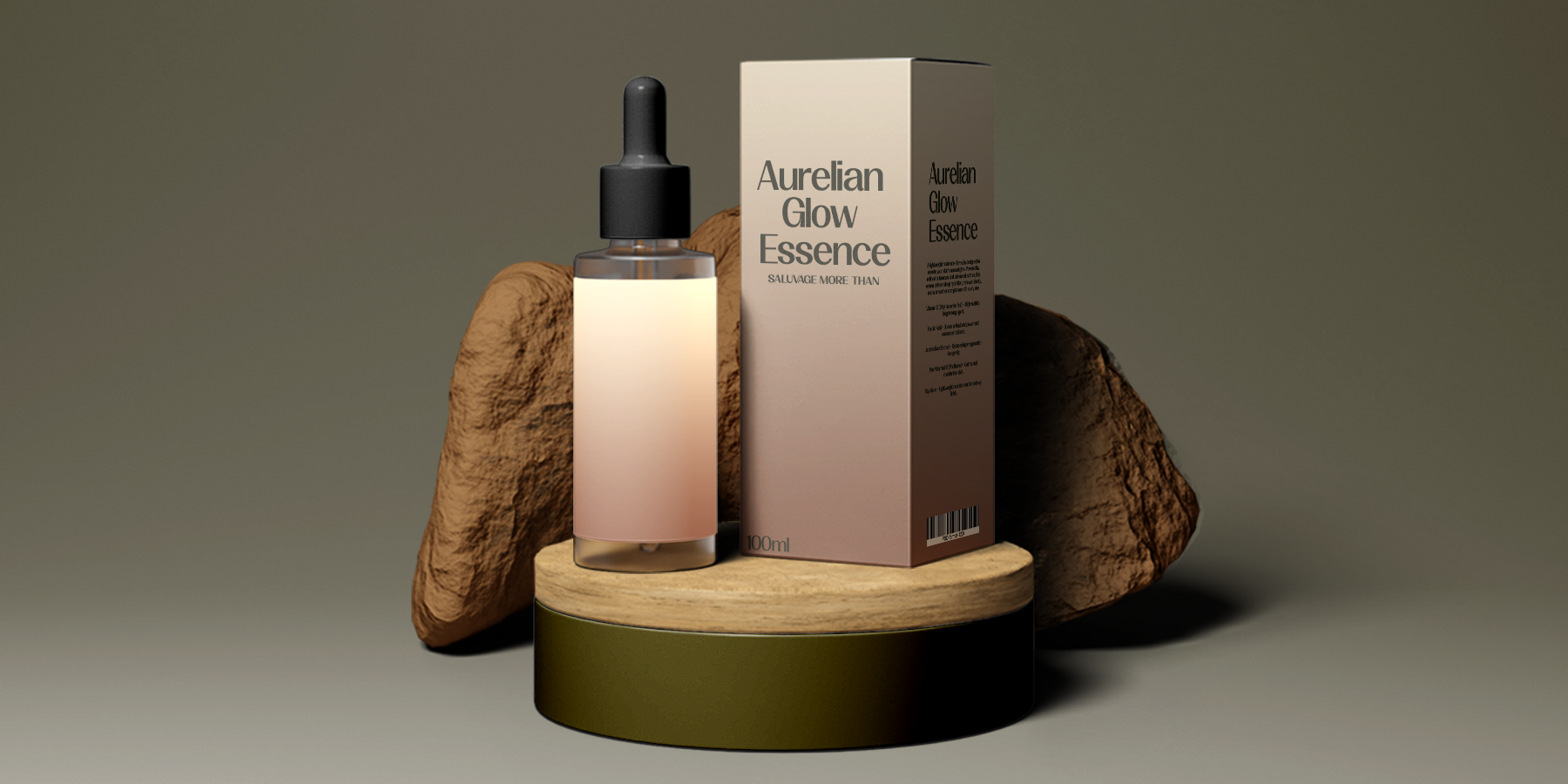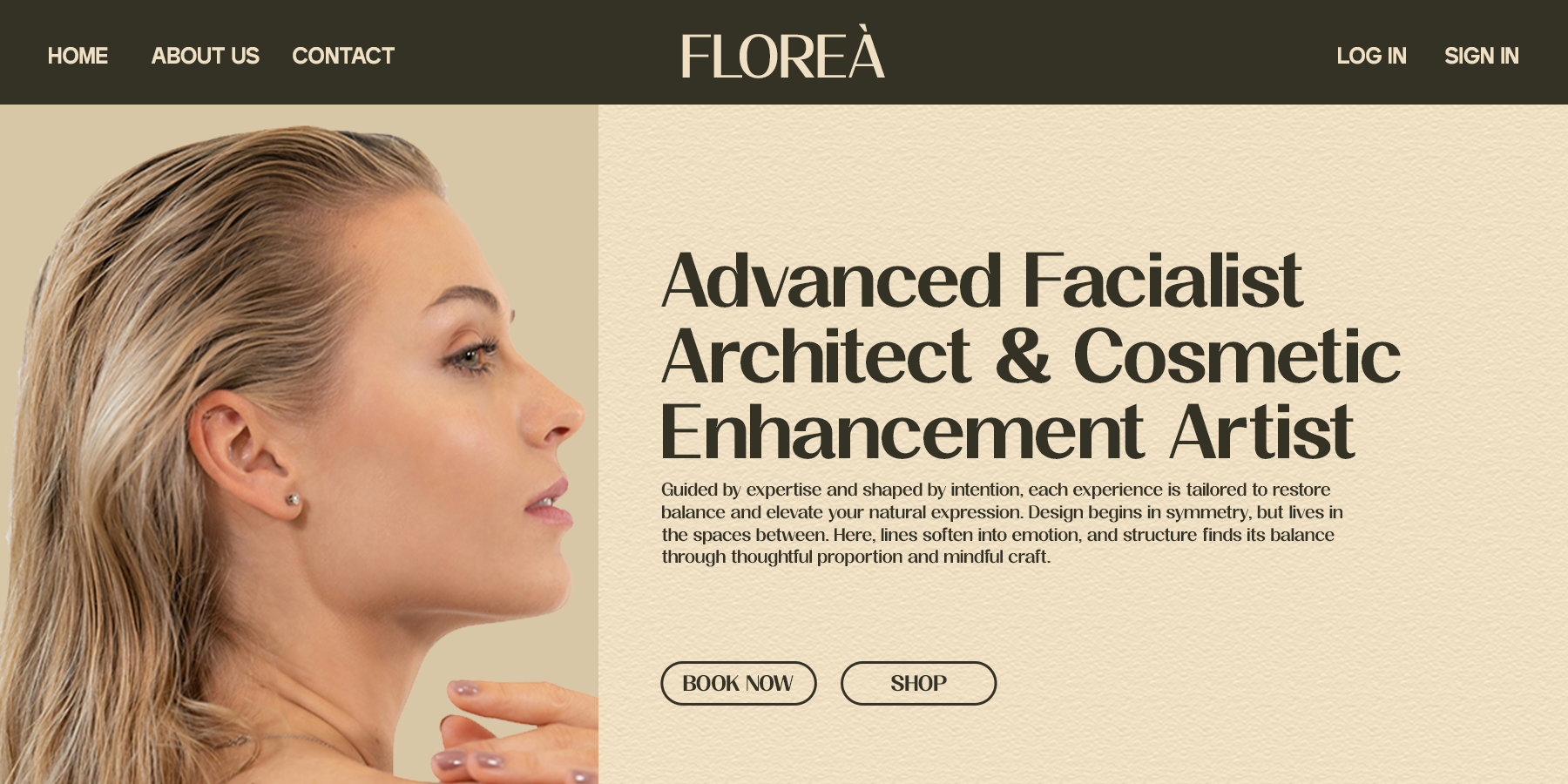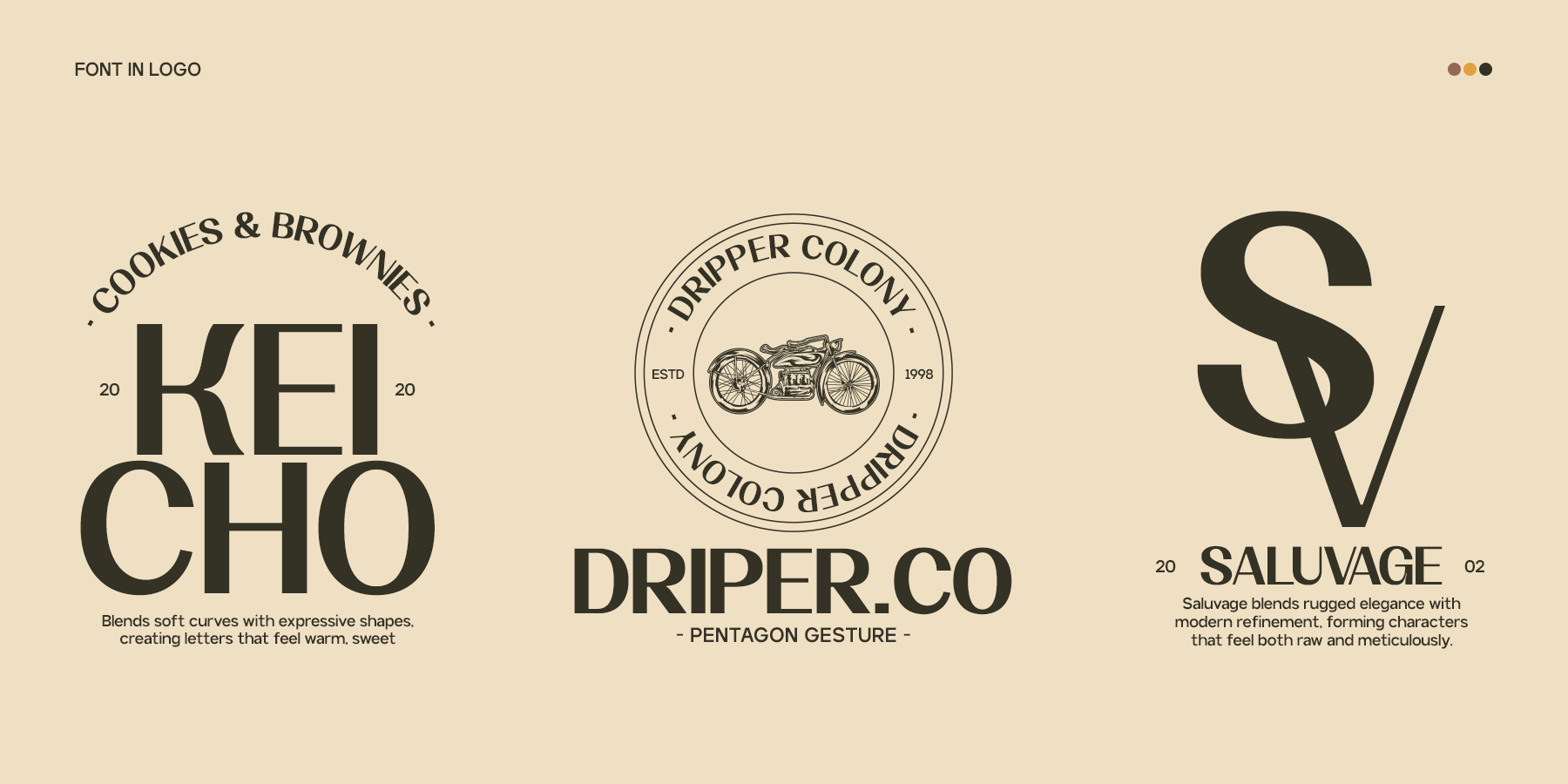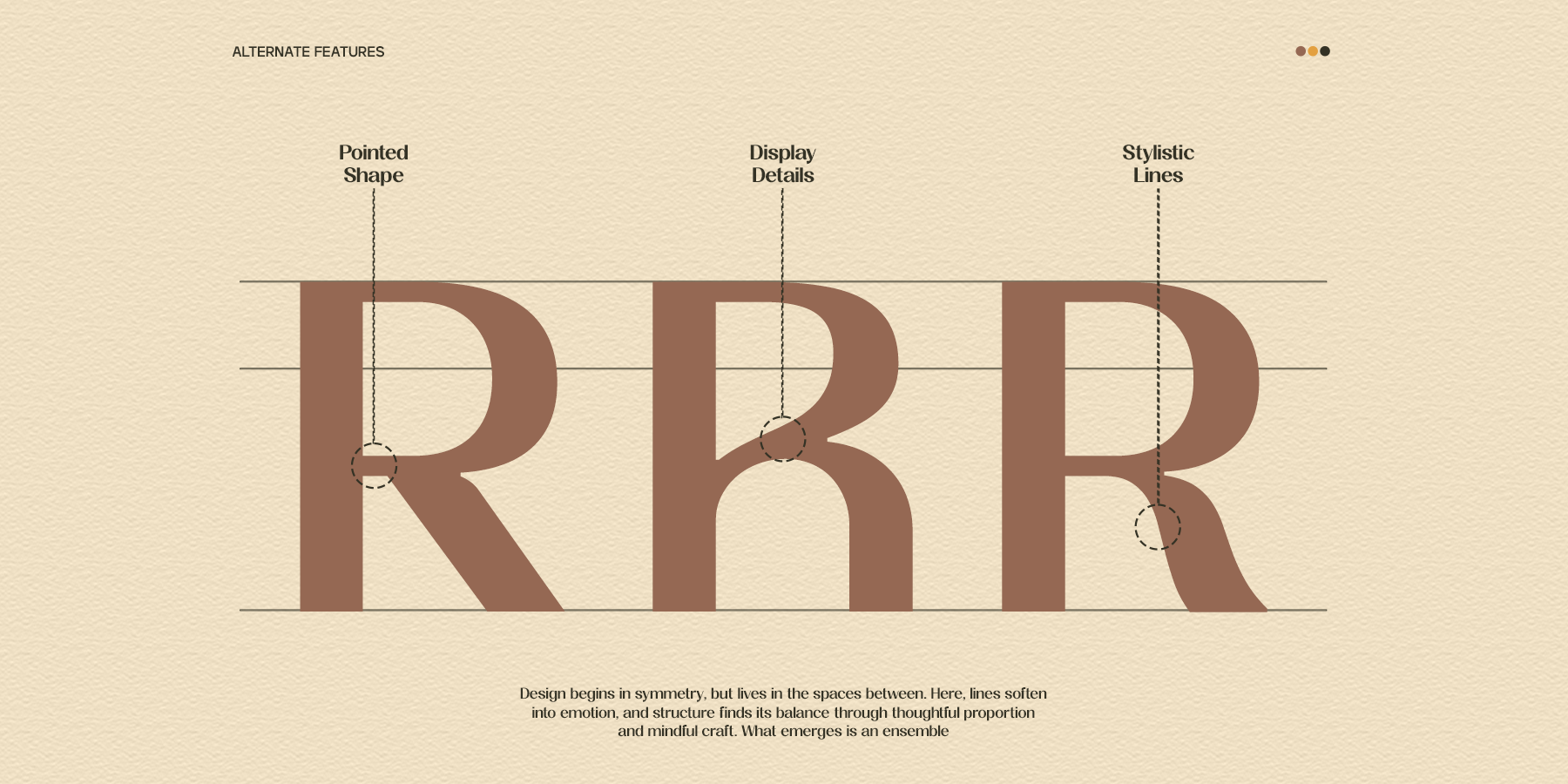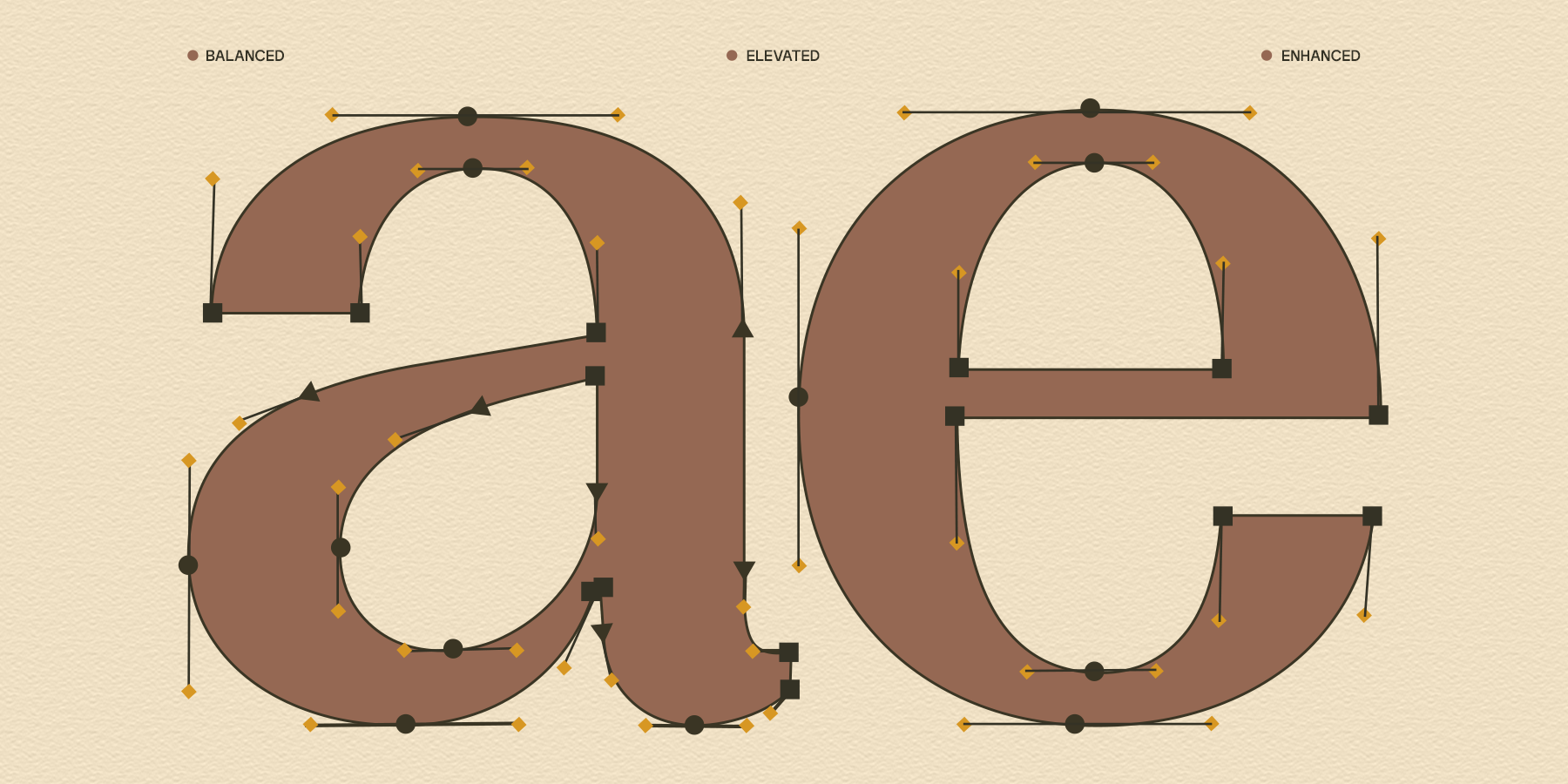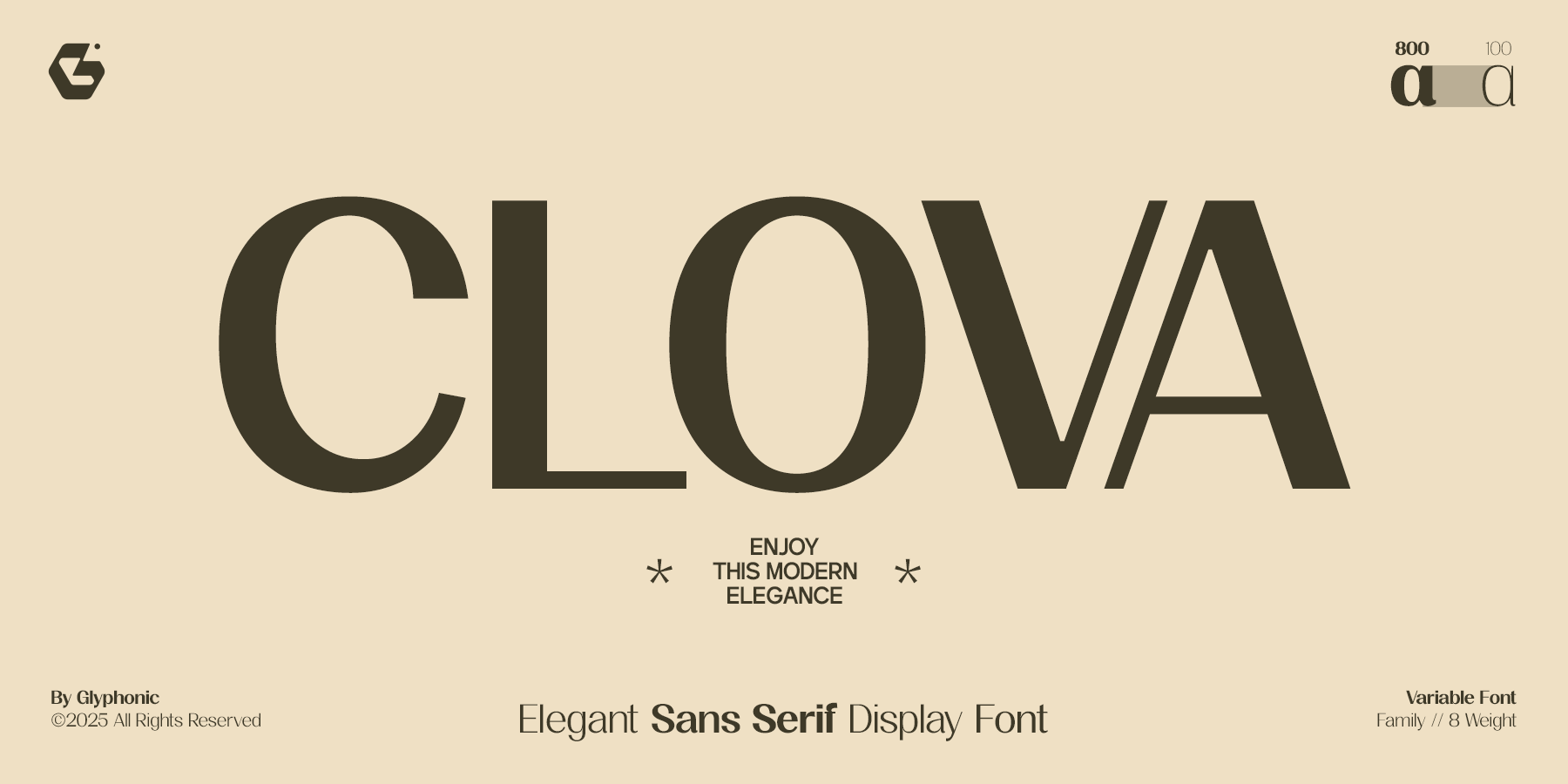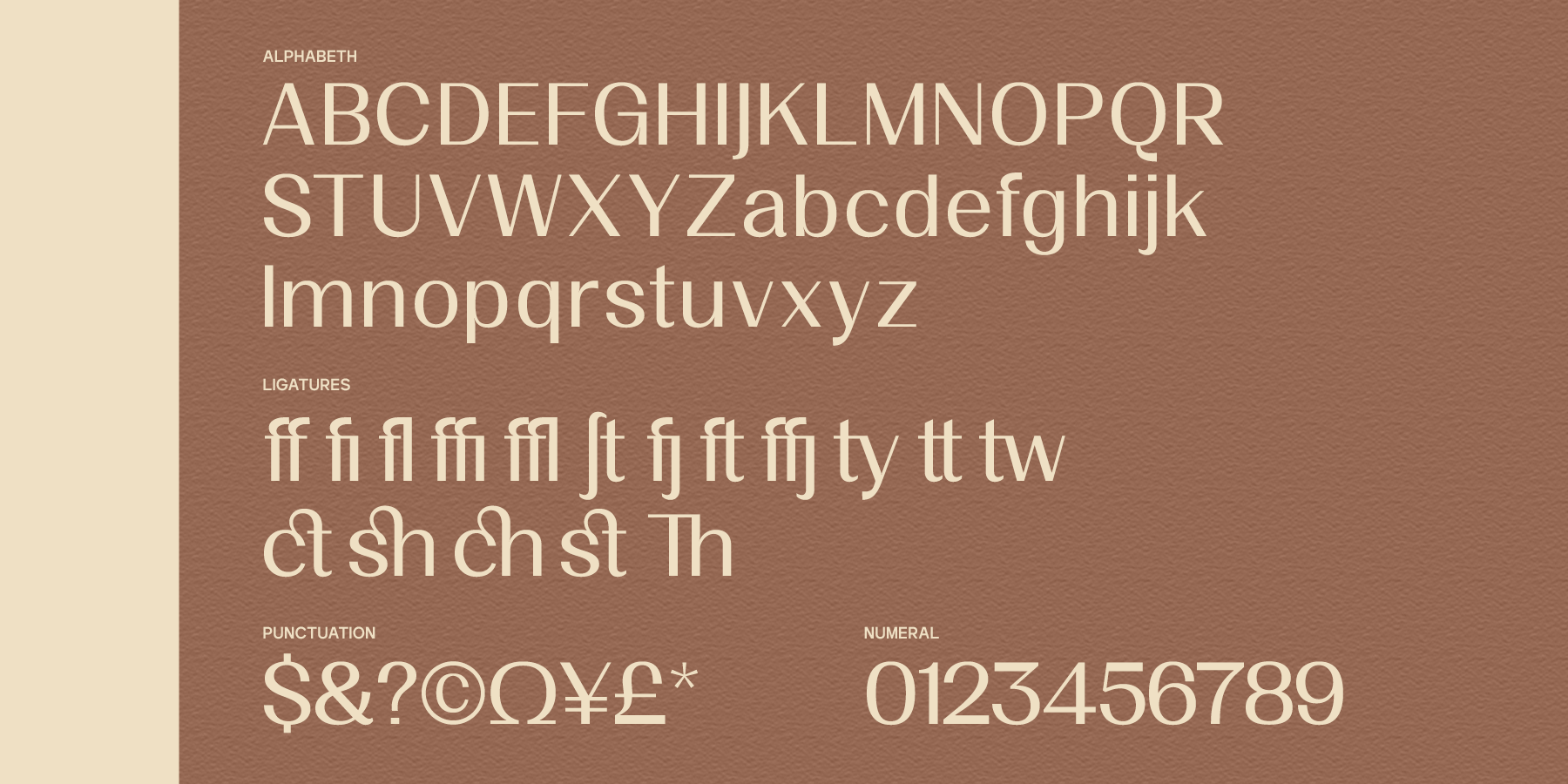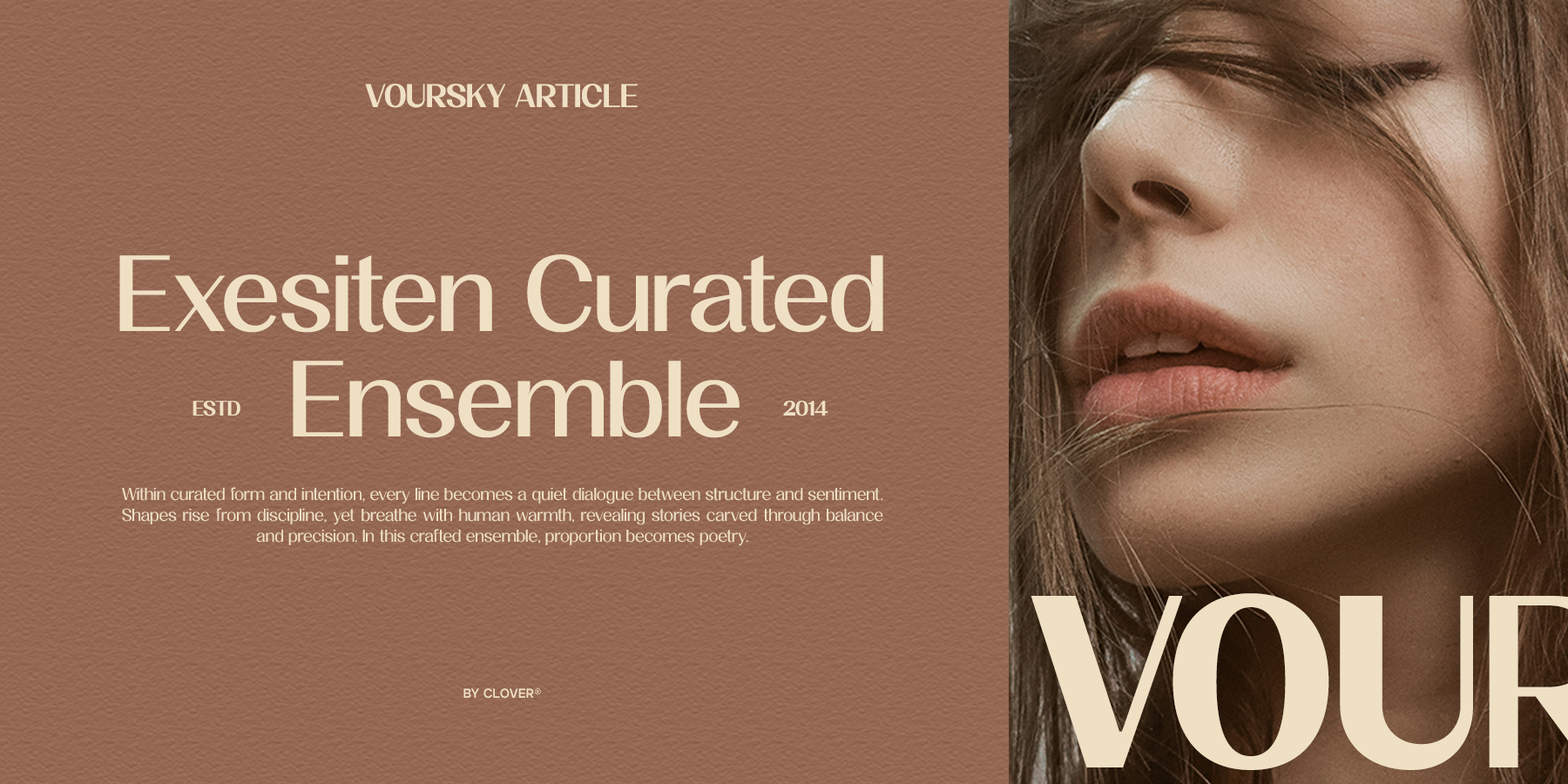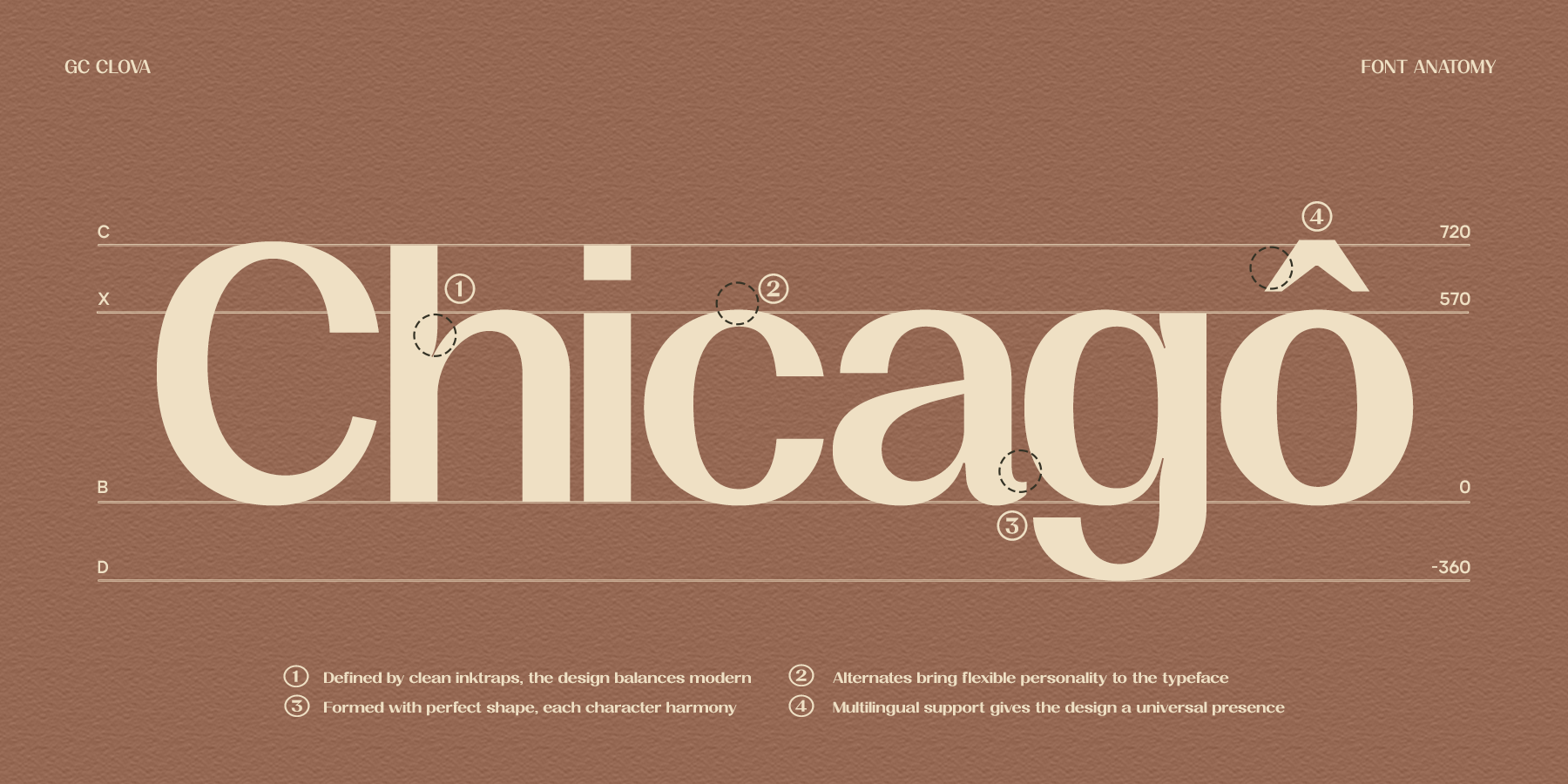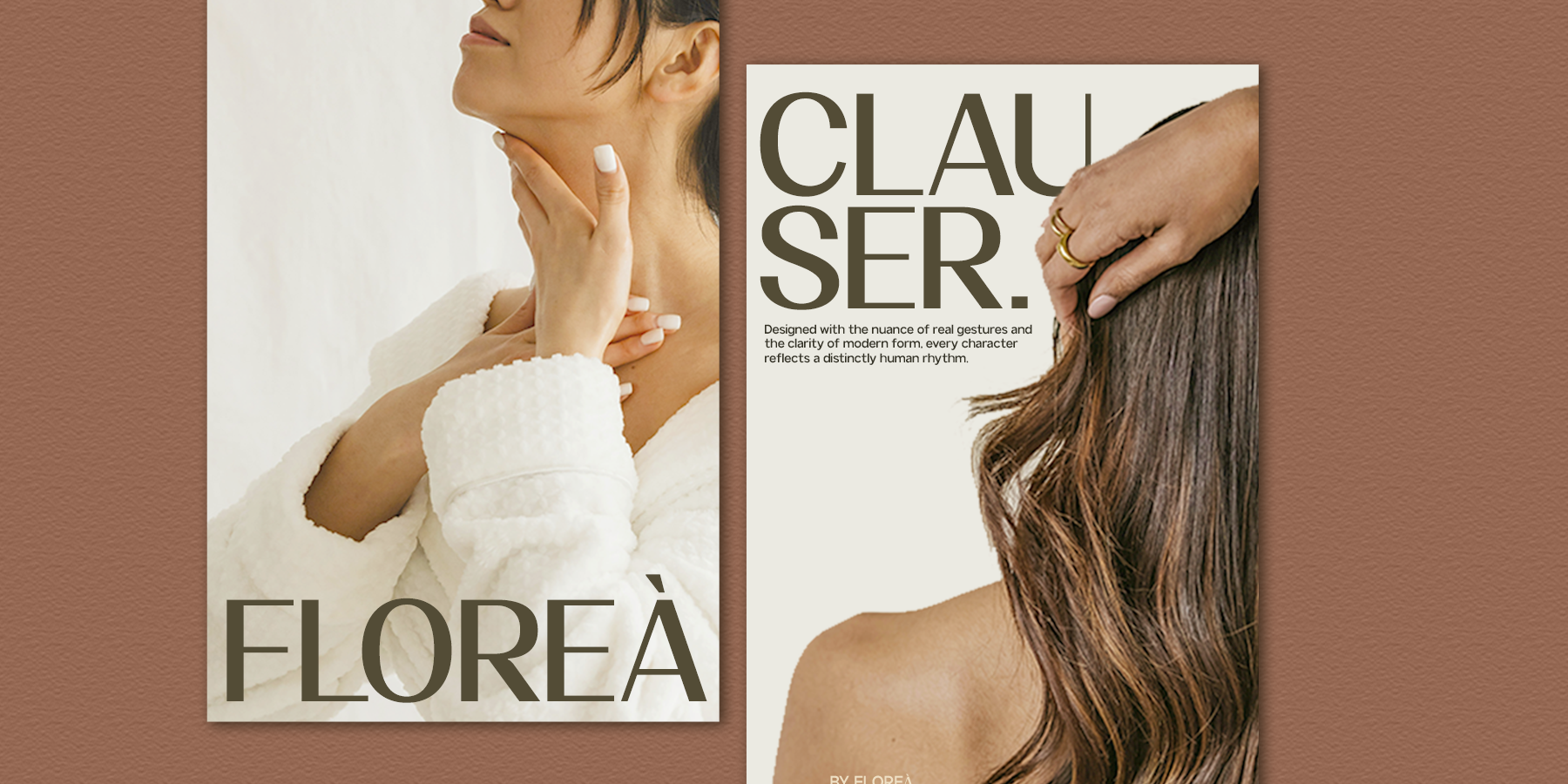
GC Clova - Elegant Sans Serif Display Font
GC Clova created by Glyphonic – Elegant Sans Serif Display Font is a refined display typeface designed to deliver elegance, clarity, and modern sophistication. With its smooth geometry and graceful stroke contrast, it offers a confident yet stylish presence that shines across branding, editorial design, packaging, and high-end visual identities. Crafted to maintain simplicity while showcasing expressive details, it brings a polished and contemporary charm to any design project.
Precise proportions and distinctive forms make GC Clova both versatile and memorable. Whether used for eye-catching headlines, luxury branding, or minimalistic compositions, this font elevates your typography with a blend of elegance, modernity, and visual harmony.
- Uppercase & Lowercase
- Numbers & Punctuation
- Elegant Display Sans Construction
- Multilingual Support (170+ Languages)
Bring refined elegance, clarity, and modern display sophistication to your design with GC Clova.